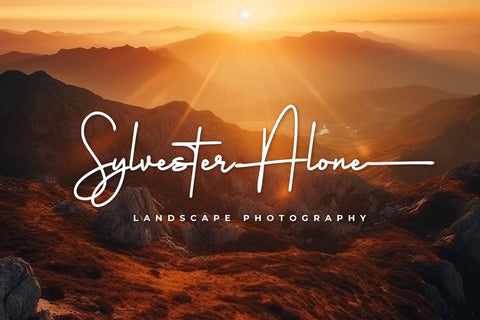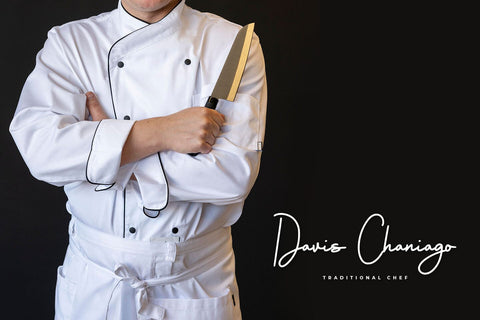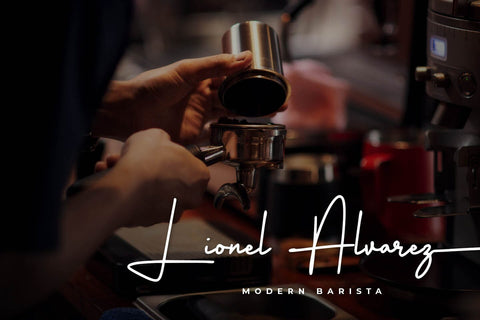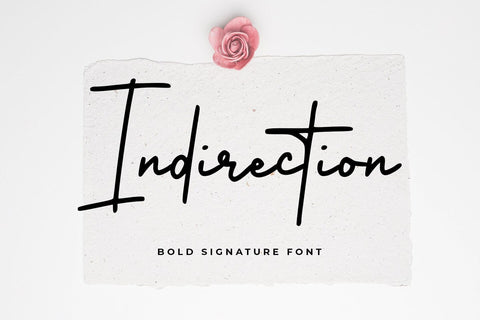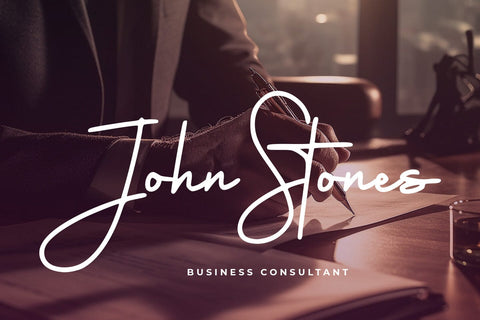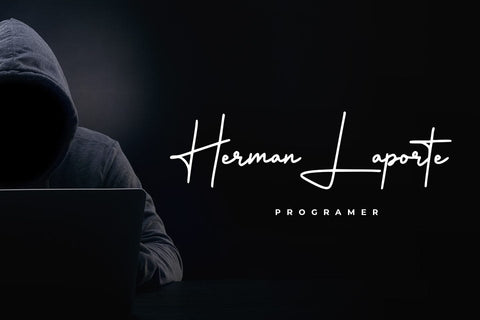
Indirection
introducing
INDIRECTION
- bold signature font -
GHOSTINGER is a natural signature font.
It is great for branding, packaging, quotes, logos, t-shirt designs, tote bag designs, cards, banners, social media, and more.
- Numeral
- Punctuation
- Swash